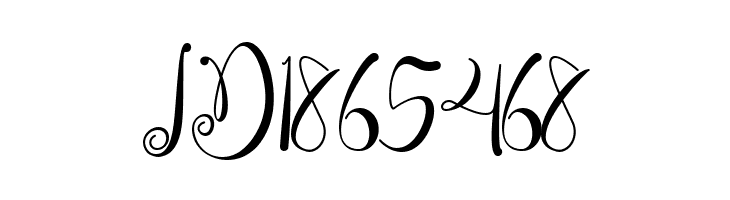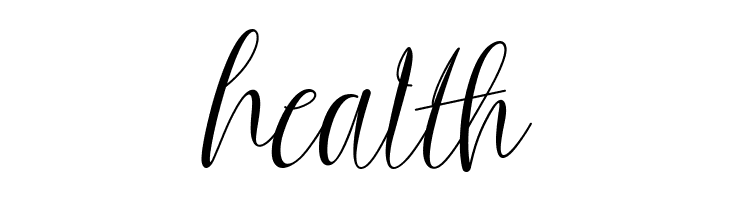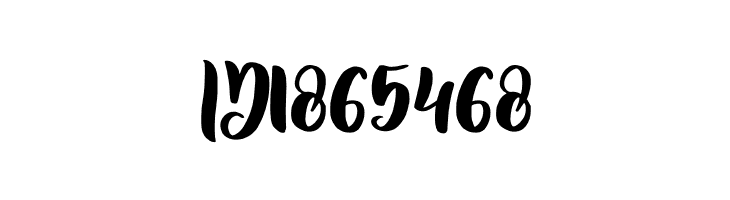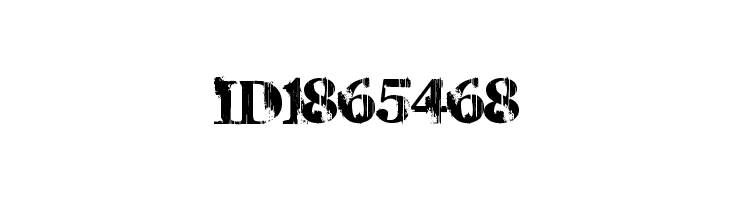
A playful and elegant script font with flowing, connected letterforms.
A bold, dripping font with star accents, perfect for gothic or festive themes.
A bold, expressive handwritten font with dynamic strokes.
A bold, elegant script font with flowing, cursive letterforms.
A bold, high-contrast serif font with strong vertical emphasis and elegant serifs.
A bold, italic serif font with high contrast and sharp serifs.
A bold, high-contrast serif font with sharp serifs and a commanding presence.
A bold, high-contrast serif font with an italic style, perfect for striking headlines.
A bold, high-contrast serif font with a commanding presence.
A bold, high-contrast serif font with an italic slant, ideal for striking designs.
A sophisticated, high-contrast italic serif font with sharp serifs.
A refined serif font with high contrast and elegant, elongated strokes.
A refined, light, and italic serif font with high contrast and elegant serifs.
A bold, serif font with a modern twist, ideal for impactful headlines.
An elegant, italicized font with medium weight and sharp strokes.
A bold, high-contrast serif font with a modern twist on classic elegance.
A bold serif font with high contrast and strong presence.
A bold, italic serif font with a strong, dynamic presence.
A classic serif font with bold, elegant curves and strong presence.
An elegant italic serif font with medium contrast and smooth lines.
A bold, high-contrast serif font with a strong and classic presence.
A bold, italic serif font with strong strokes and pronounced serifs.
An elegant italic serif font with smooth, flowing lines and refined serifs.
A refined serif font with a light weight and classic elegance.
An elegant, light, and italic serif font with a modern touch.
A bold serif font with high contrast and strong, classic serifs.
A medium weight, italic serif font with a classic and elegant style.
A bold, serif font with a modern yet classic style, featuring pronounced serifs and strong letterforms.
A bold, modern font with strong geometric shapes and high contrast.
An ornate, gothic-style font with intricate and flowing letterforms.
A bold, textured font with a vintage feel, perfect for impactful headlines.
A bold, italicized font with a strong, condensed style.
An ornate blackletter font with gothic and medieval influences.
An elegant script font with flowing curves and intricate swashes.